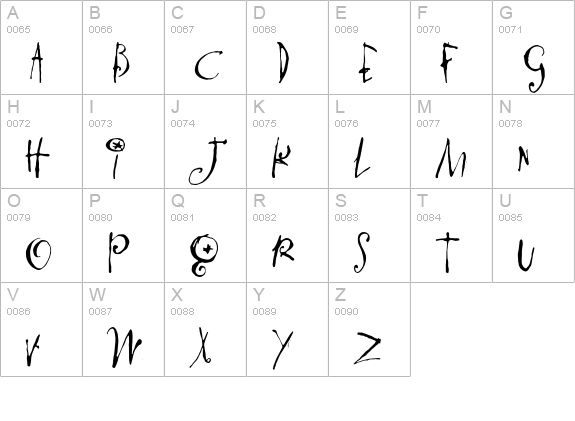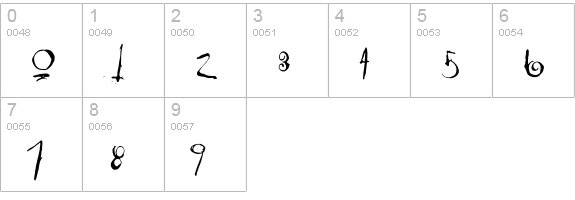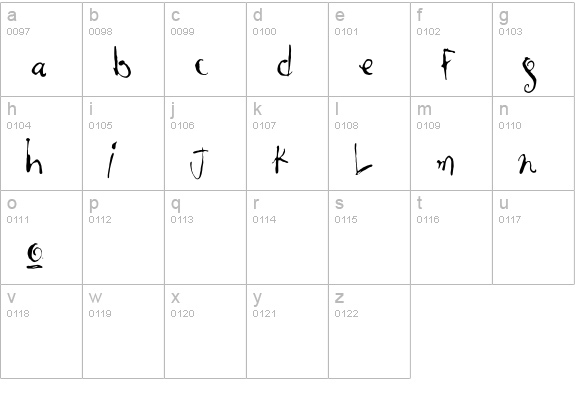
BonGuia Font Details
BonGuia font is a stunning display typeface that combines elegance with a touch of modernity. Its sleek lines and intricate details make it perfect for a wide range of design projects, from logos to branding to editorial design. With its unique character and versatility, BonGuia font is sure to make your designs stand out. The best part? BonGuia font is completely free to download at FontsMarket.com. So whether you're a seasoned designer looking to add a fresh touch to your projects or a beginner searching for the perfect typeface, BonGuia font is the ideal choice. Download it today and elevate your designs with this exquisite font!